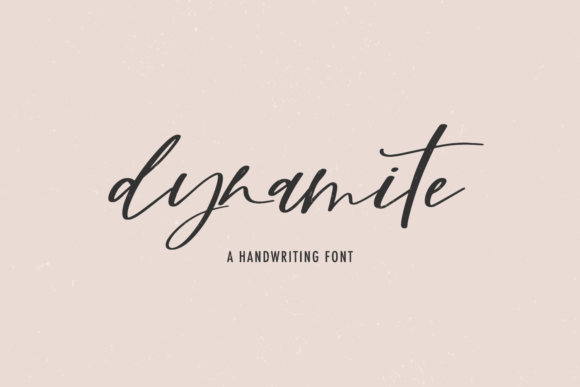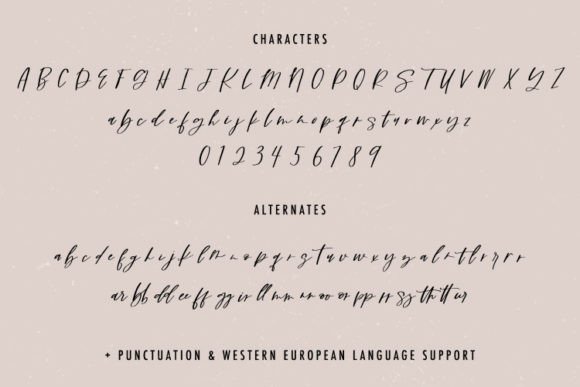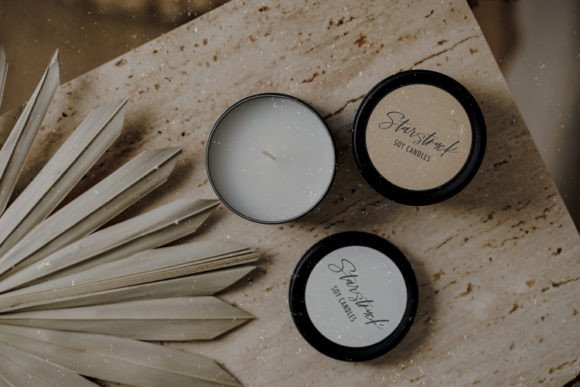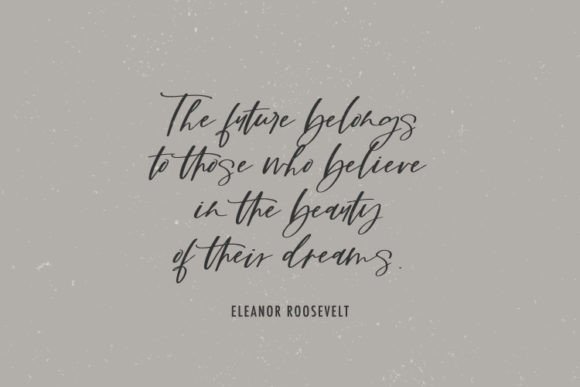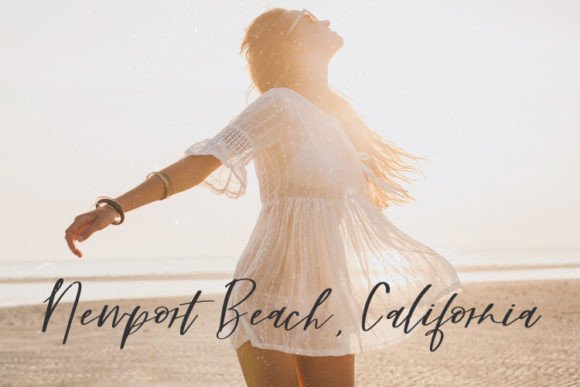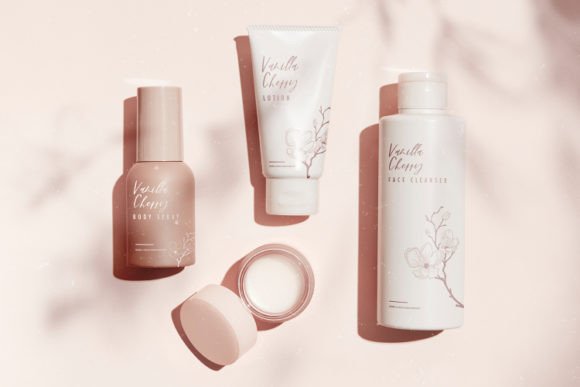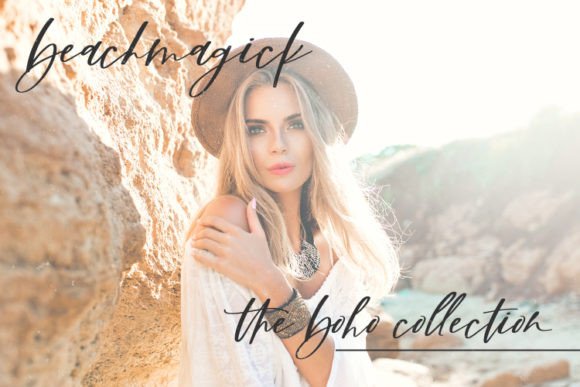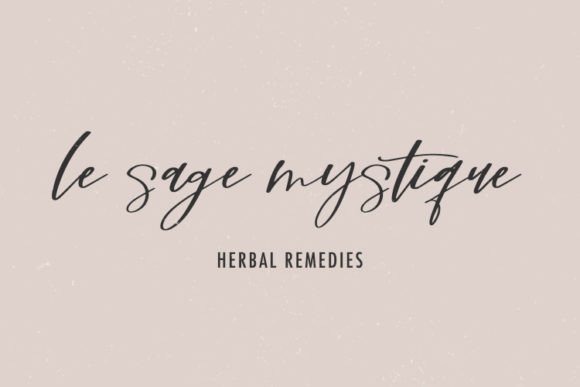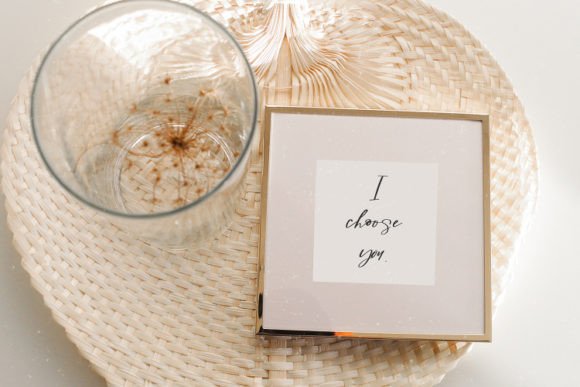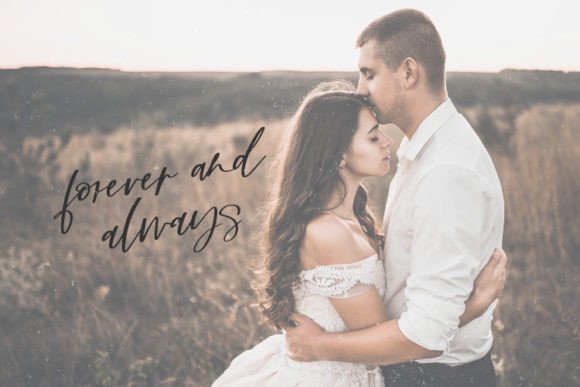
Dynamite Font
About Dynamite Font
“Dynamite” is presented as a casual, modern calligraphy script font with a chic and stylish aesthetic. This font is crafted to be versatile, making it suitable for a wide range of feminine design projects where a contemporary and fashionable look is desired.
The casual and modern calligraphy style of “Dynamite” allows it to adapt seamlessly to various design applications. Whether you’re working on invitations, branding materials, social media graphics, or any other feminine design project, this font adds a touch of elegance and trendiness.
The chic and stylish appearance of “Dynamite” makes it particularly fitting for projects that aim to convey a sense of sophistication and modernity. Its script nature adds a personal and handwritten touch, enhancing the overall aesthetic.
Given its contemporary and fashionable design, “Dynamite” is well-suited for a diverse range of feminine-centric applications, from fashion and beauty branding to lifestyle and wellness promotions.
In summary, “Dynamite” is a casual, modern calligraphy script font that brings a chic and stylish look to feminine design projects. Its versatility and on-trend design make it a valuable asset for designers seeking a font that effortlessly combines elegance and contemporary style in a wide array of applications.